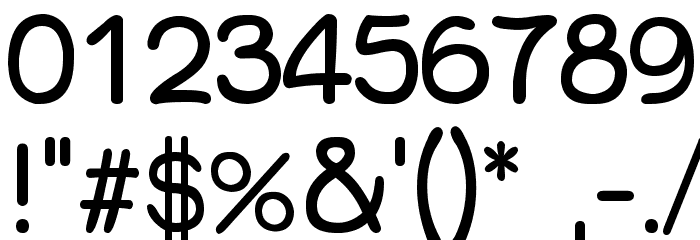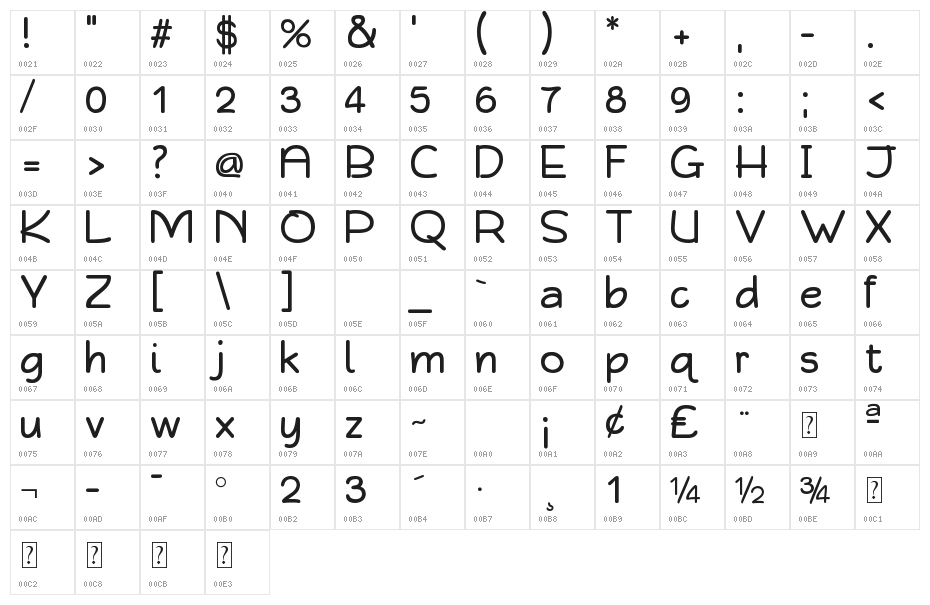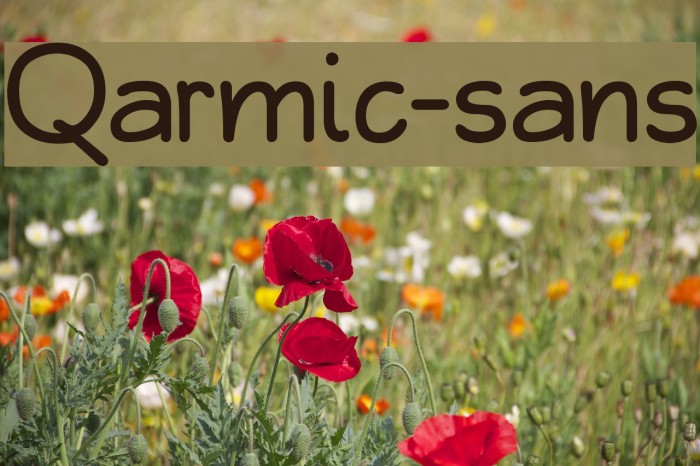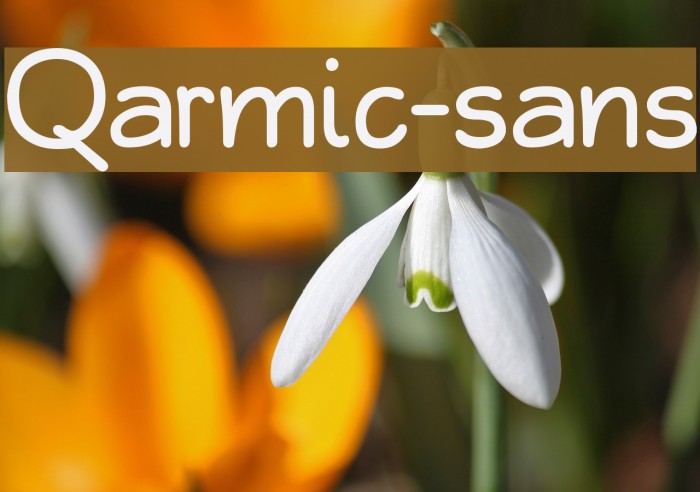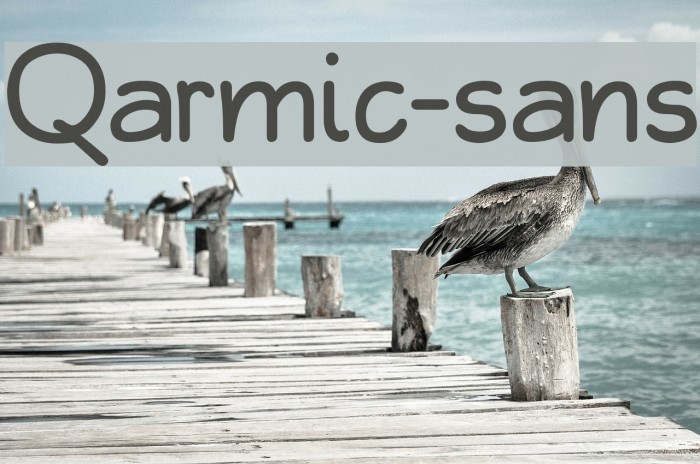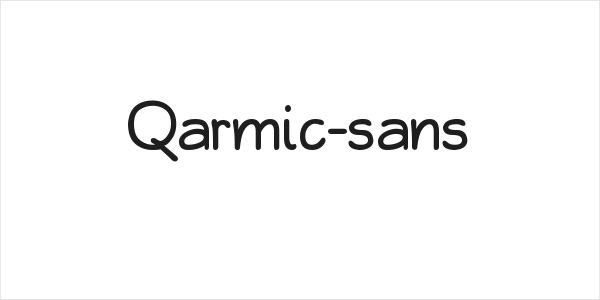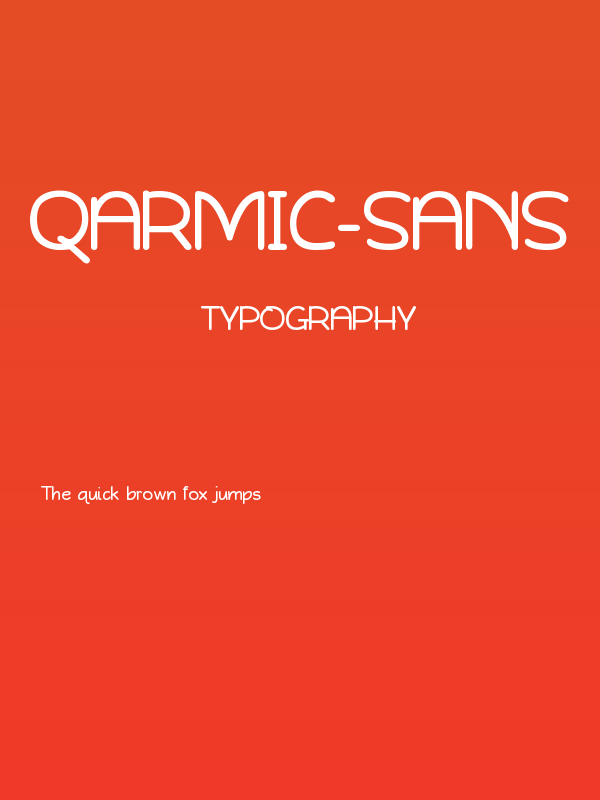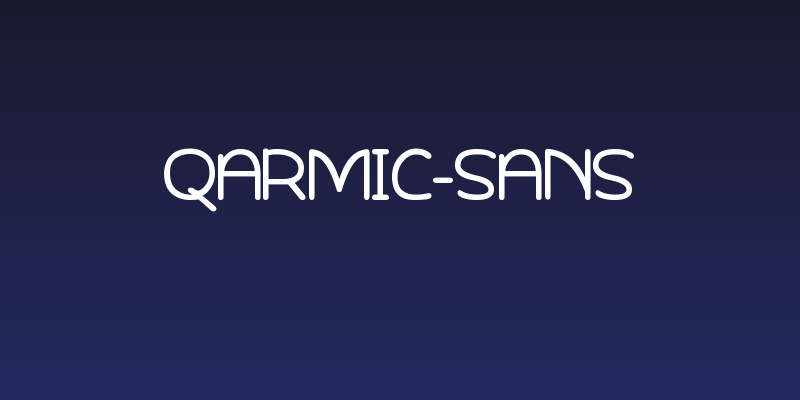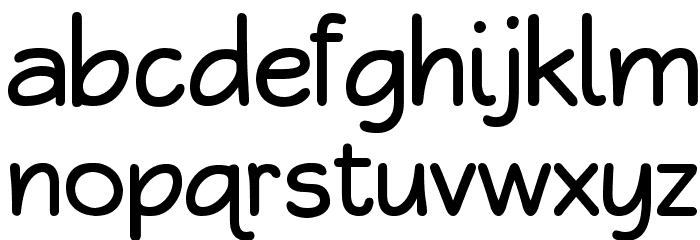
Qarmic-sans Font
Qarmic-sans Description
This font features a playful and rounded style, characterized by its smooth curves and consistent stroke width. The letters have a friendly and approachable appearance, making it suitable for informal and creative projects. The uppercase and lowercase letters maintain a uniform height, contributing to a cohesive look. The numerals and special characters are designed to match the overall aesthetic, ensuring readability and visual harmony. Its simplicity and charm make it versatile for various design applications.